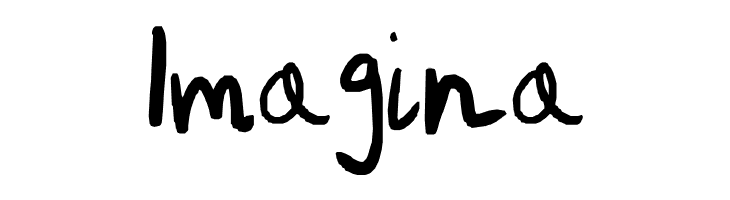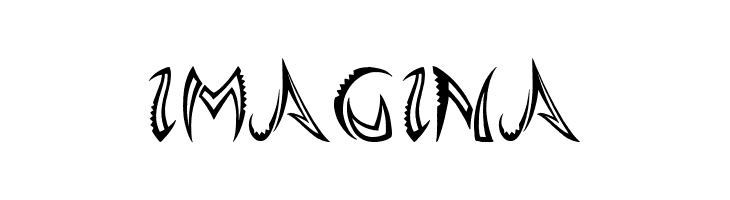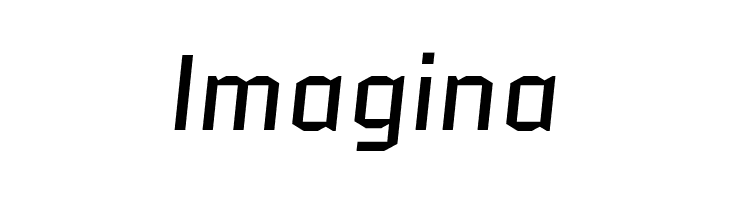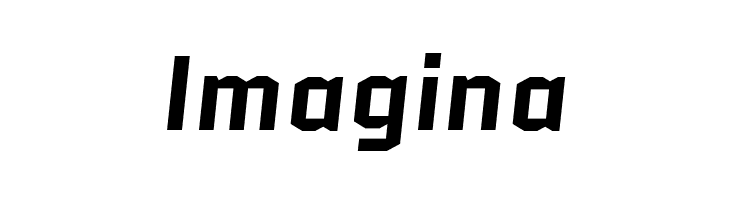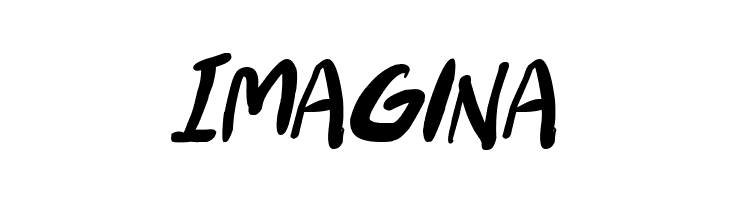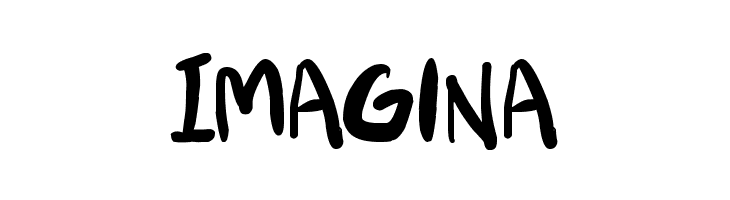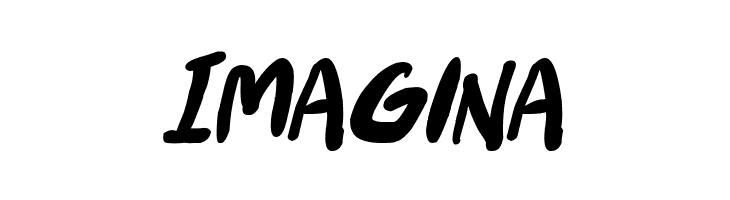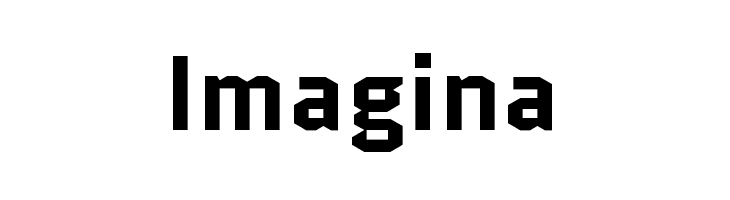
An ornate, calligraphic font with intricate swirls and flourishes.
A modern, angular font with a futuristic and edgy design.
A modern, geometric sans-serif font with clean lines and uniform width.
A modern, geometric sans-serif font with clean lines and balanced spacing.
& Marck Fogel ) A casual and friendly script font with smooth, flowing letterforms.
& Marck Fogel ) A flowing, cursive script font with elegant, connected characters.
A bold, hand-drawn font with a playful and informal style.
A bold, modern sans-serif font with a clean and professional appearance.
A playful, rounded font with smooth curves and consistent stroke width.
A playful, rounded font with bold, smooth curves and consistent spacing.
A modern, thin, and geometric font with a sleek, elongated design.
A modern, playful font with elongated, rounded characters and thin strokes.
A modern, geometric font with rounded edges and a sleek design.
A bold, distressed font with a grunge aesthetic and rough edges.
A bold, geometric font with a modern, art deco-inspired style.
A modern serif font with playful curves and a bold presence.
A modern serif font with rounded serifs and smooth curves, offering clarity and style.
A dynamic, expressive handwritten font with fluid strokes and artistic flair.
A dynamic, expressive handwritten font with fluid, irregular strokes.
A dynamic and expressive handwritten font with fluid, organic strokes.
A dynamic, expressive handwritten font with fluid, organic strokes.
A modern, clean sans-serif font with balanced proportions and excellent readability.
A futuristic and geometric font with bold, angular shapes and a modern aesthetic.
A futuristic, geometric font with sharp angles and dynamic contrast.